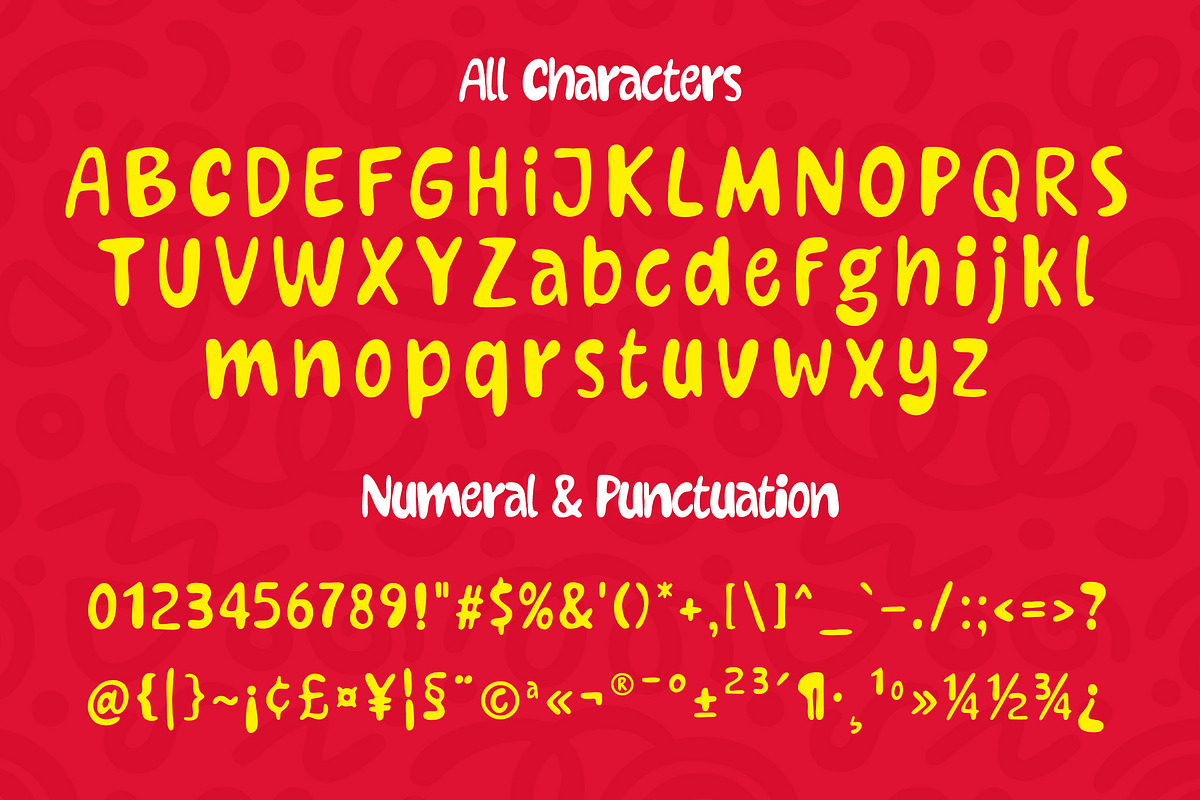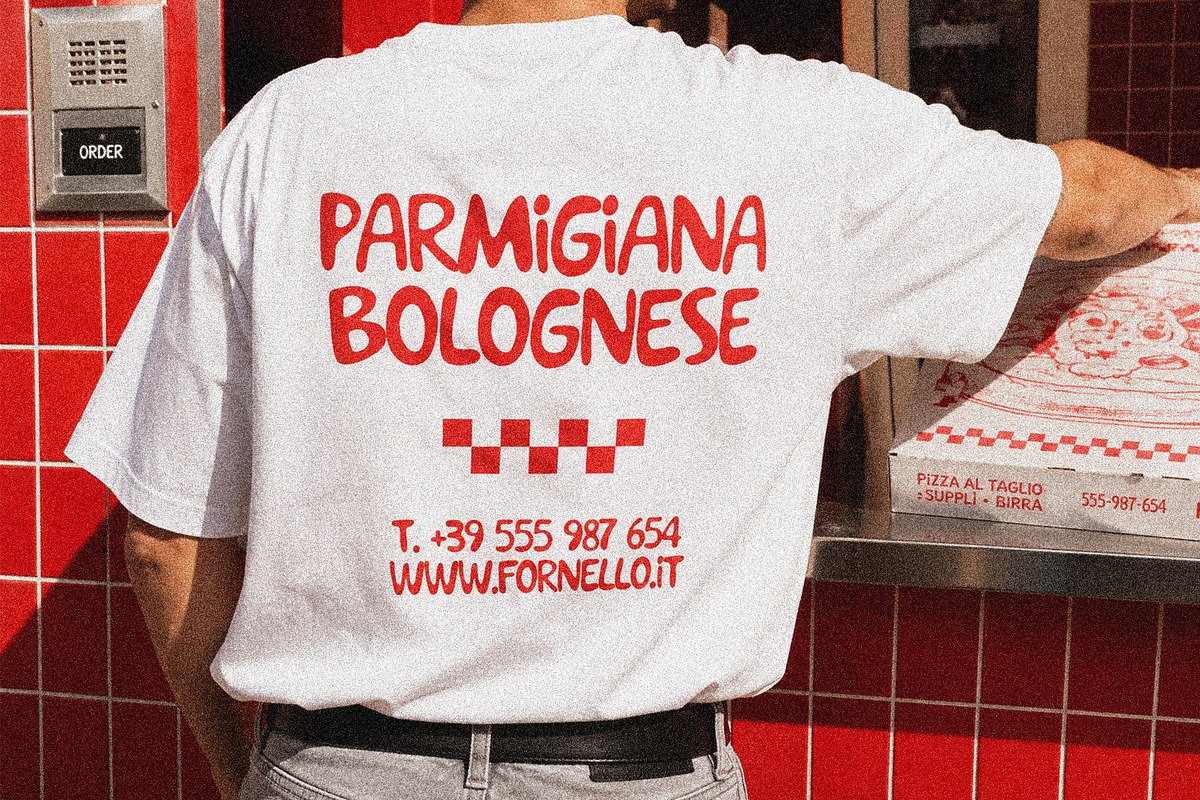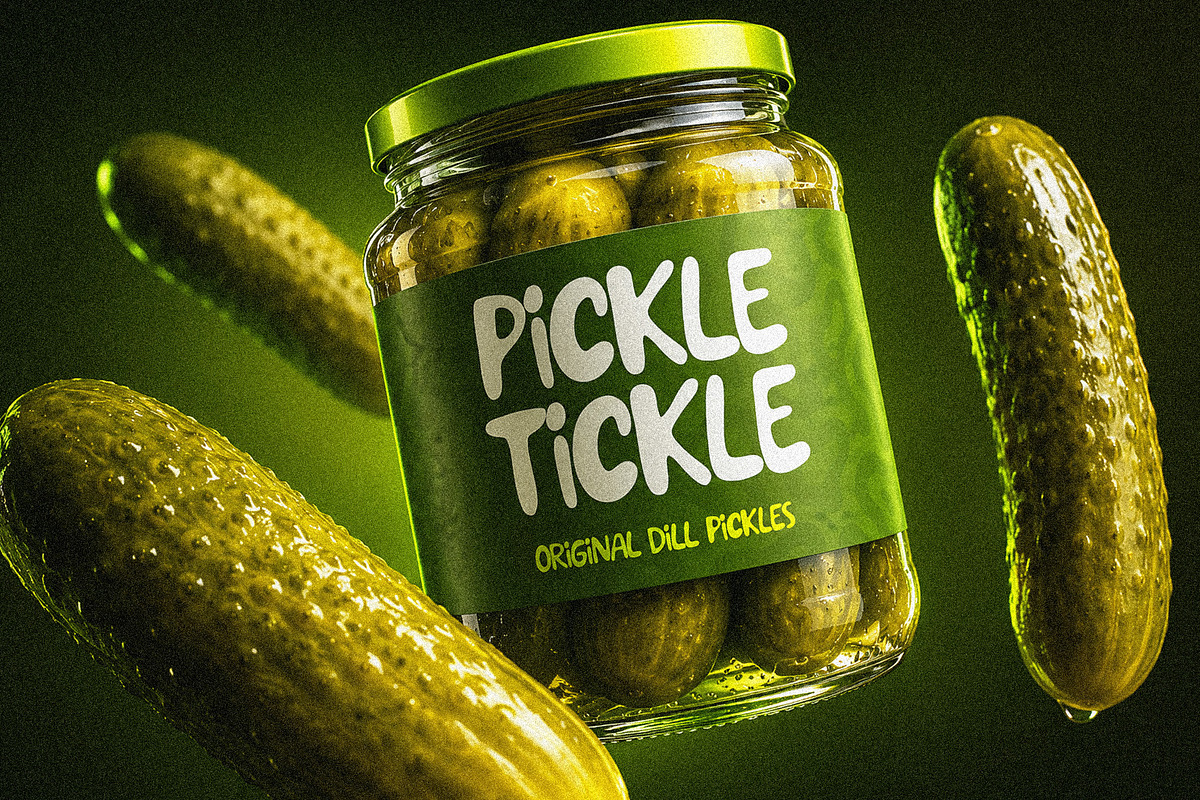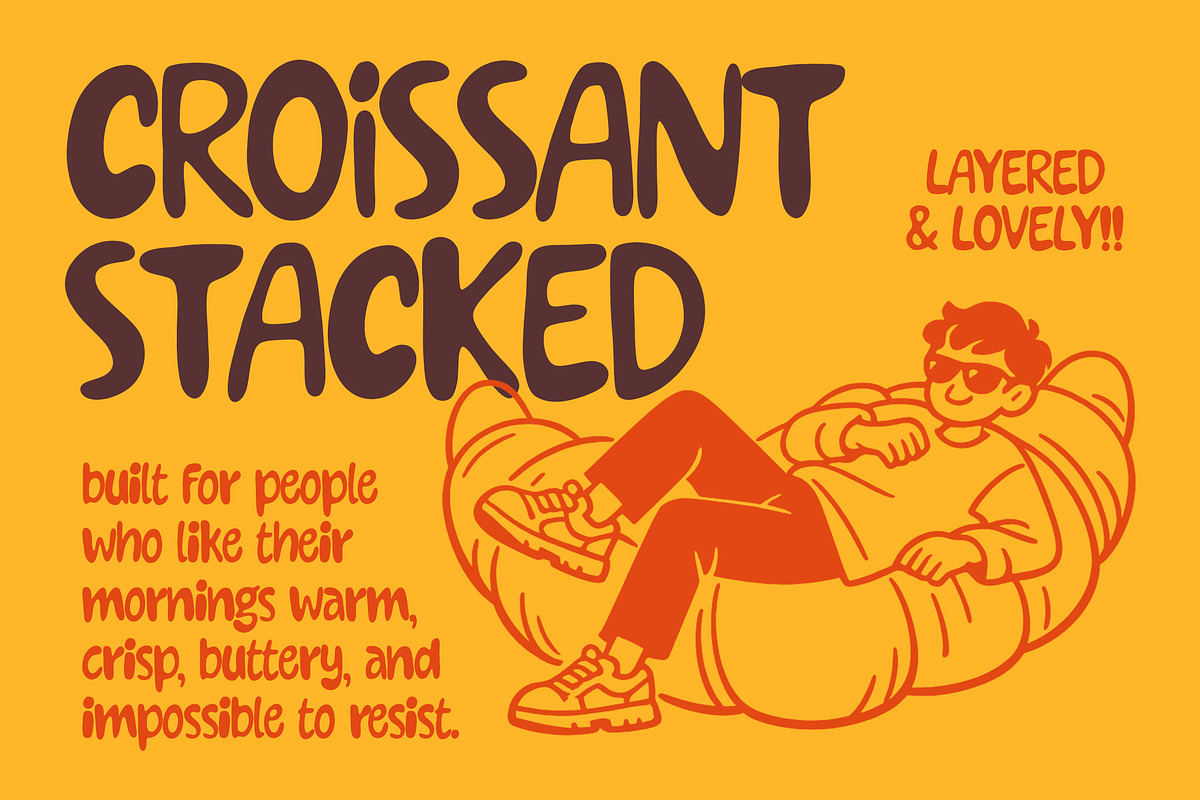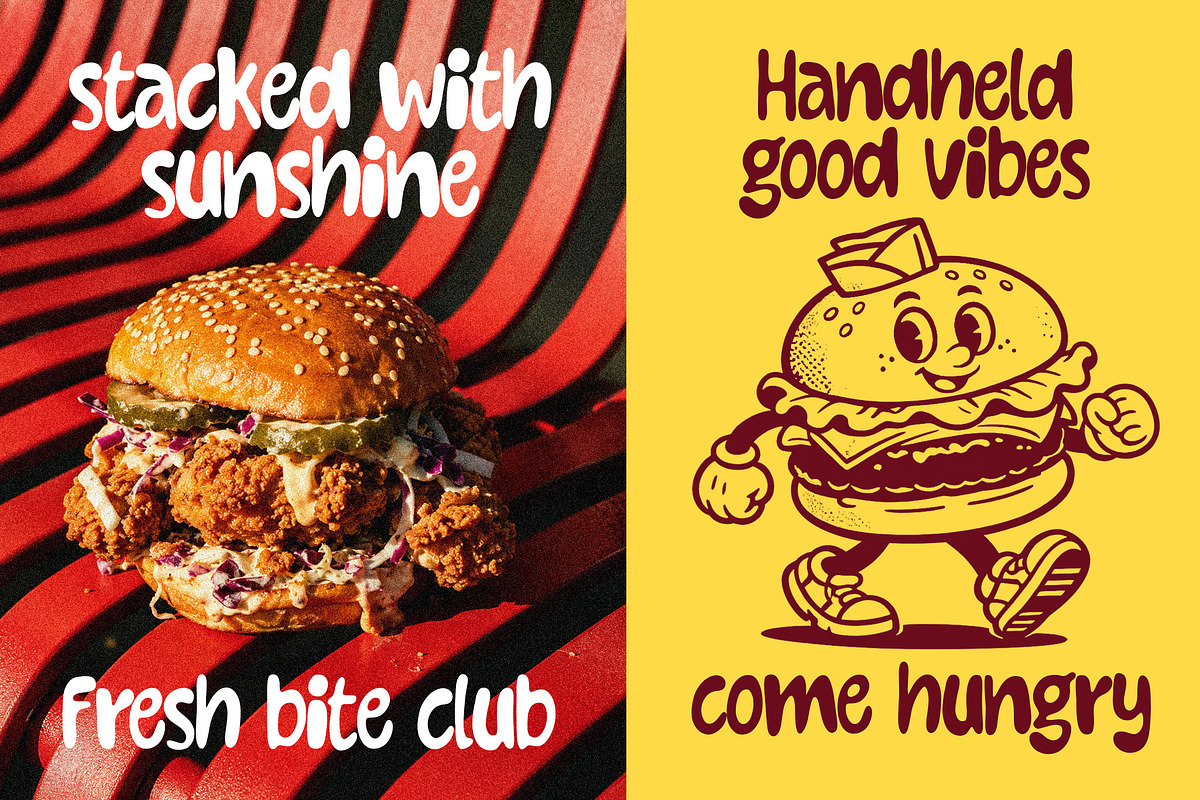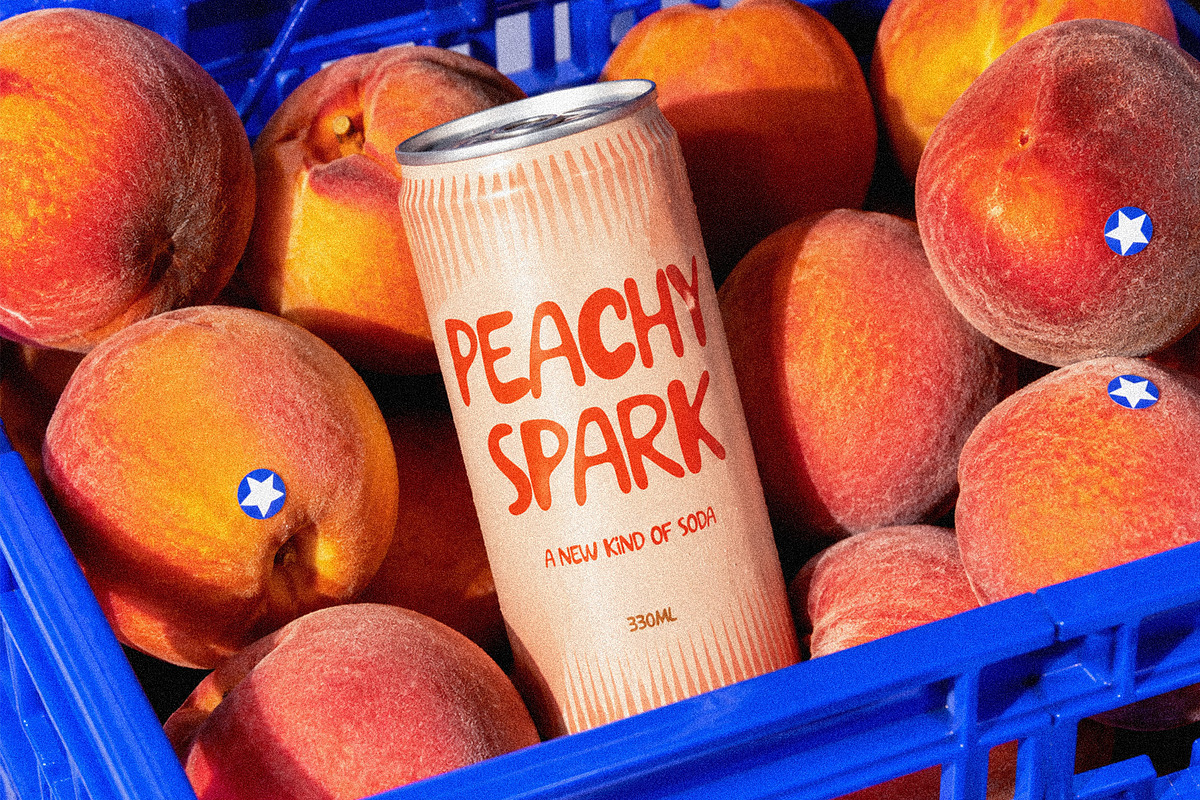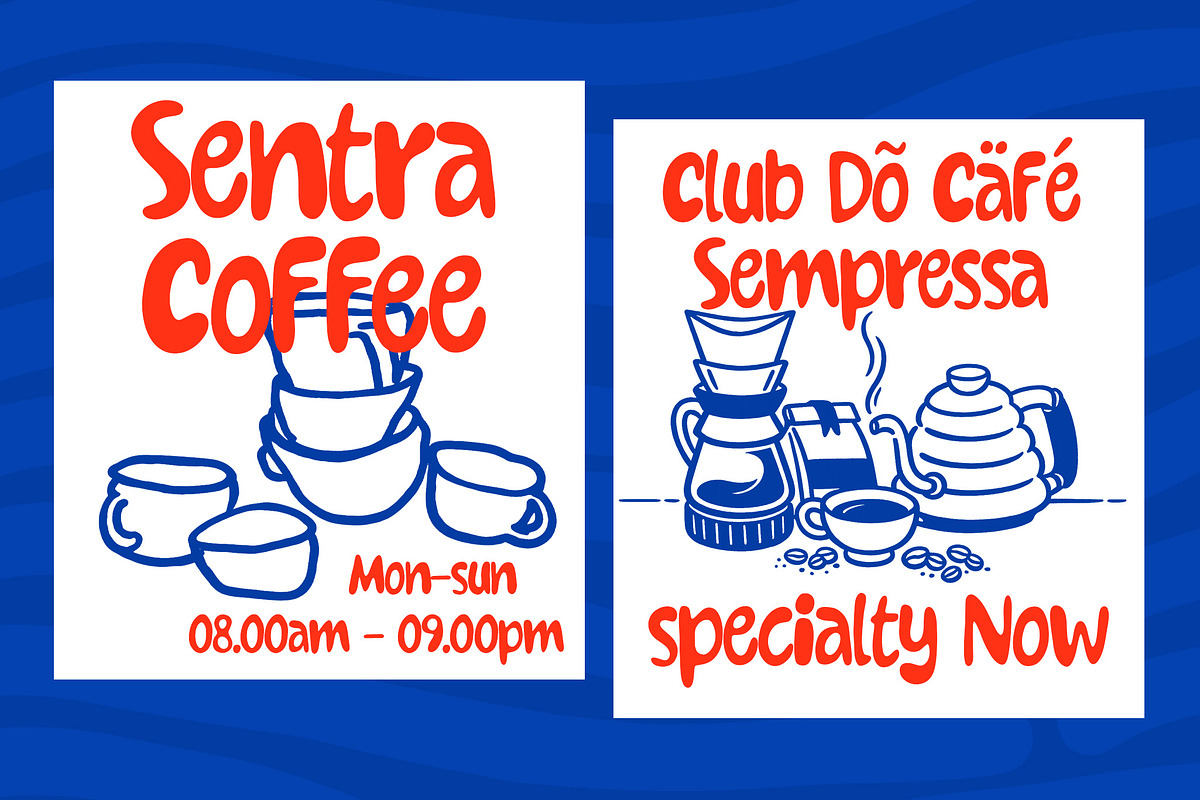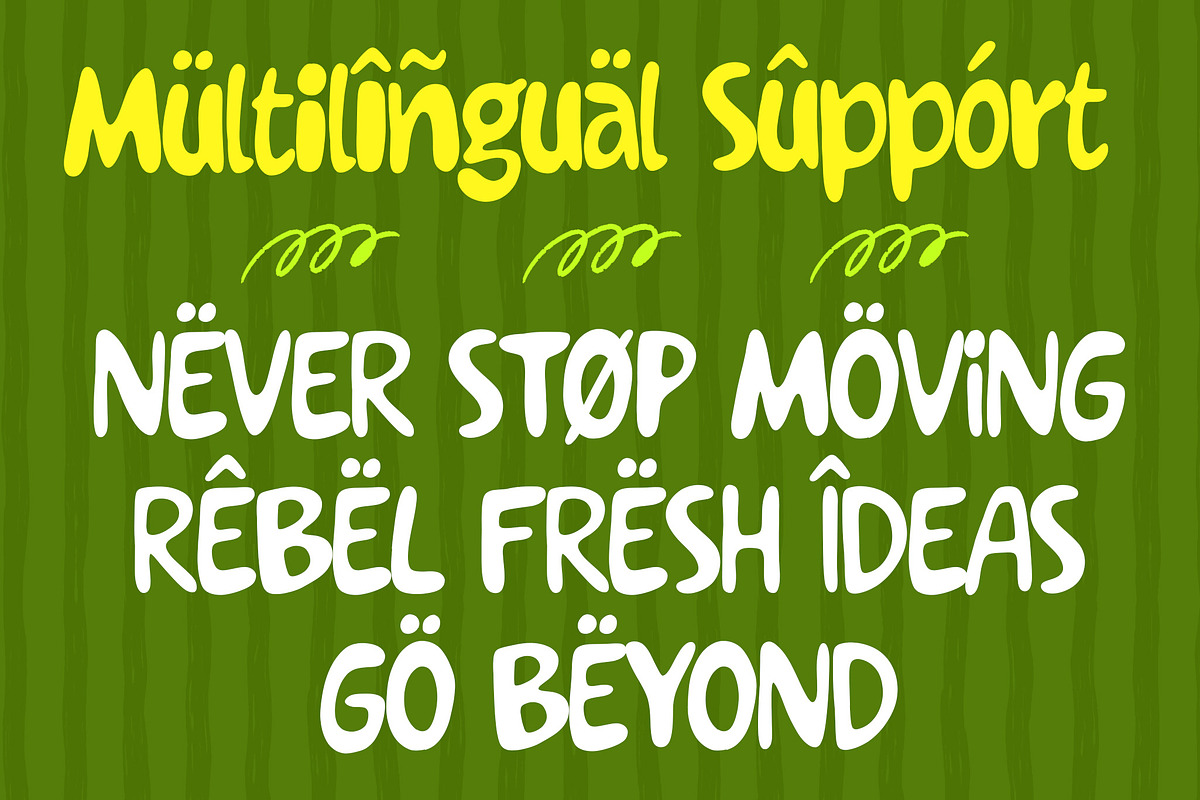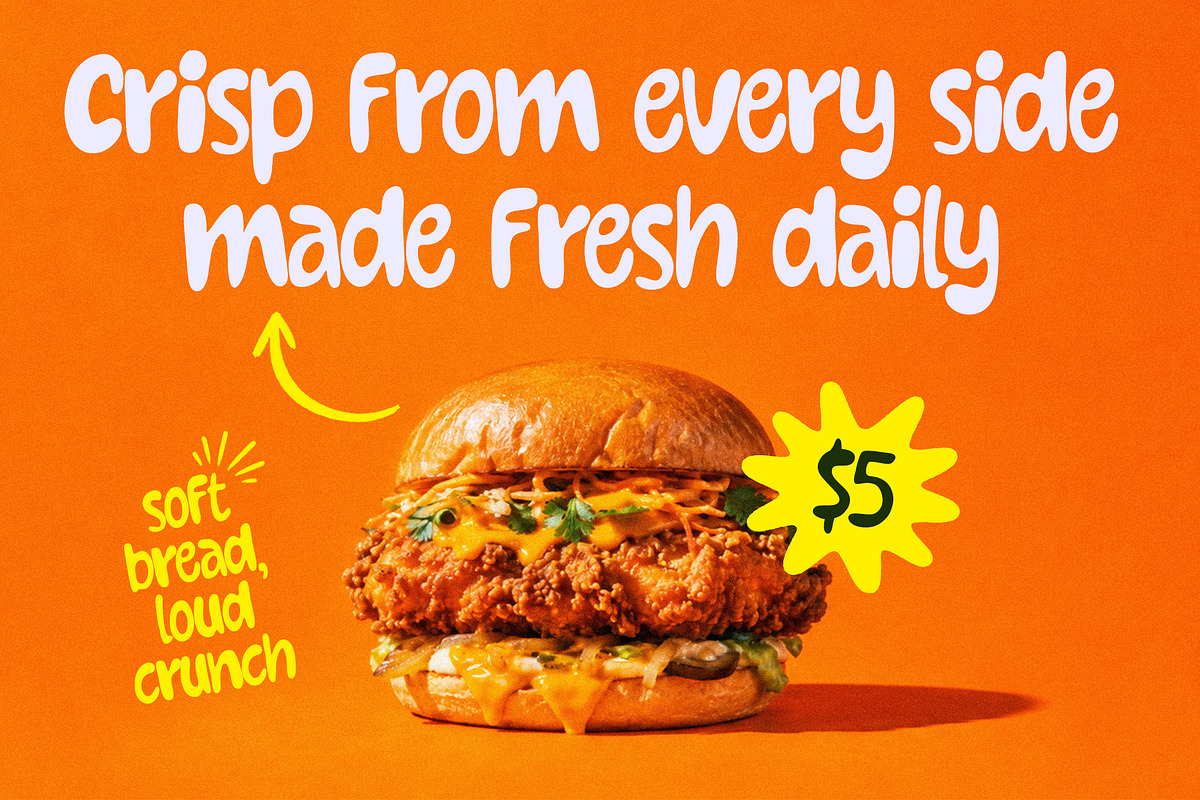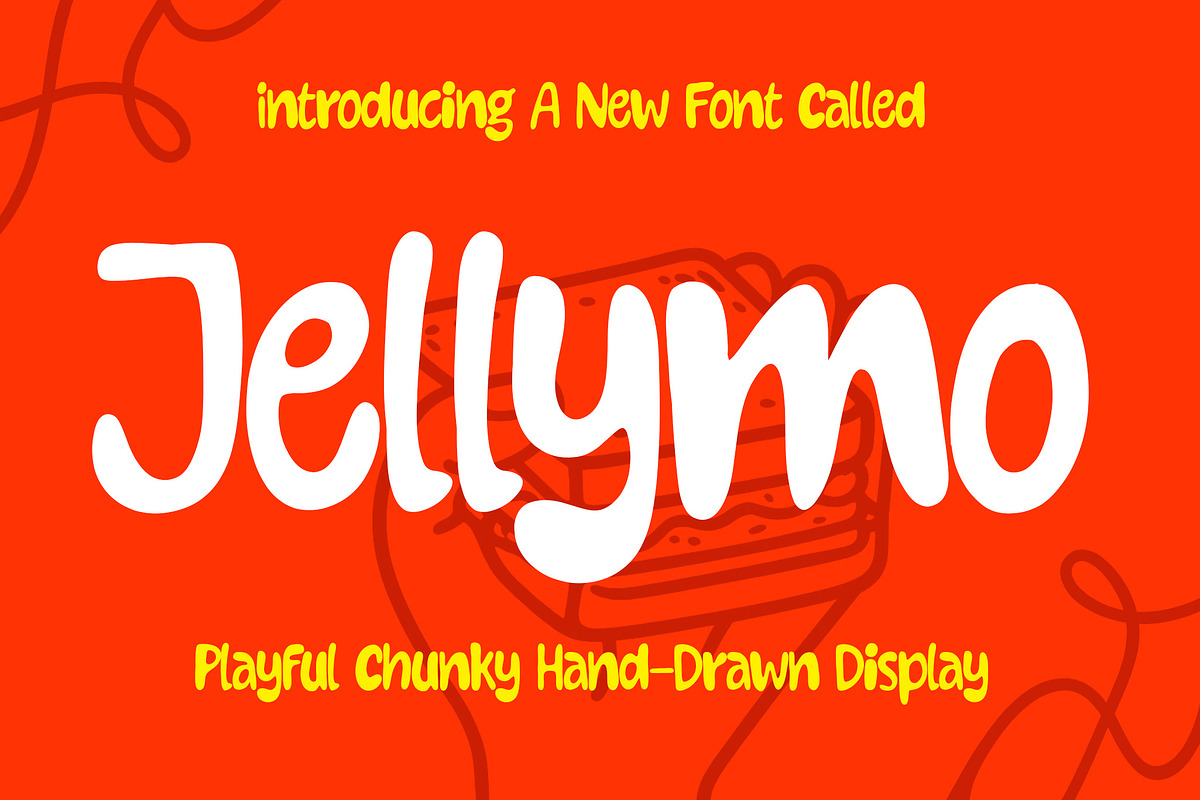
Jellymo - Playful Chunky Display
Introducing Jellymo - Playful Chunky Display Font
Jellymo is a chunky hand-drawn display font with rounded strokes, soft terminals, and an irregular rhythm that gives the letters a casual, playful feel.
Uppercase and lowercase letters
Numbers, punctuation, and symbols
Accented Latin characters for multilingual text
Suitable for display typography